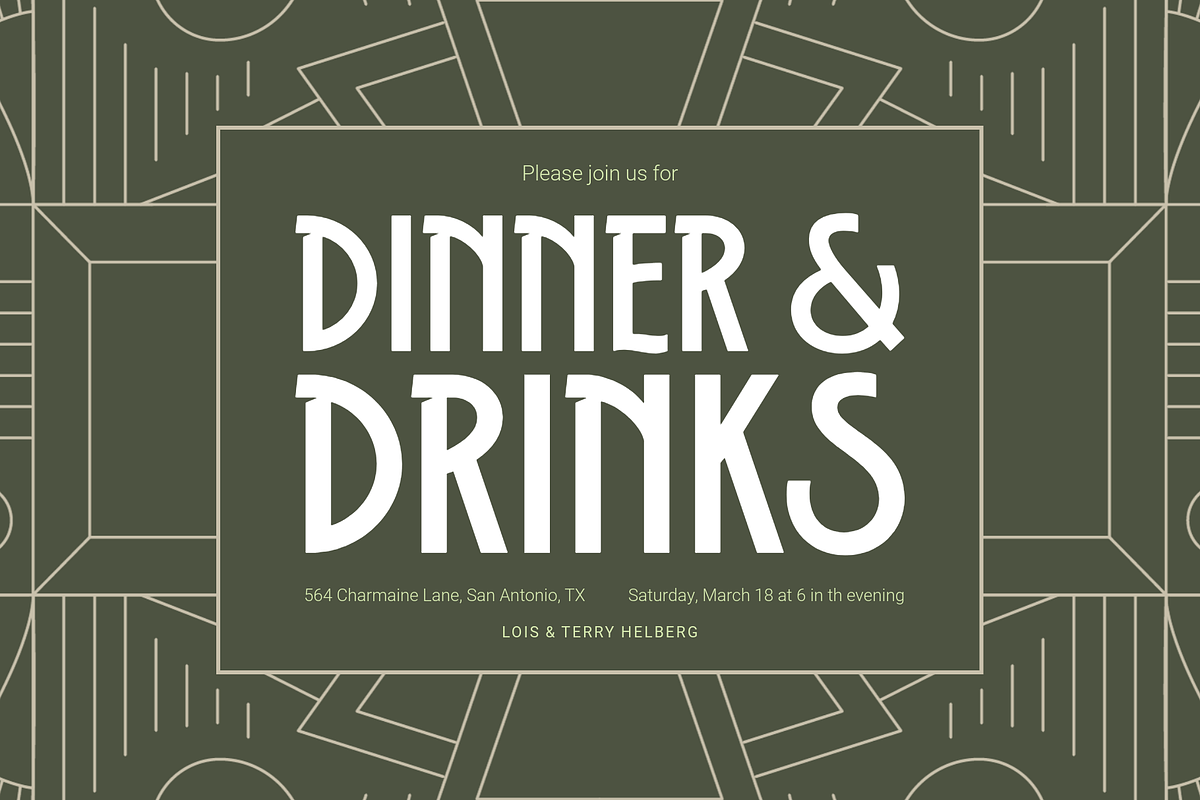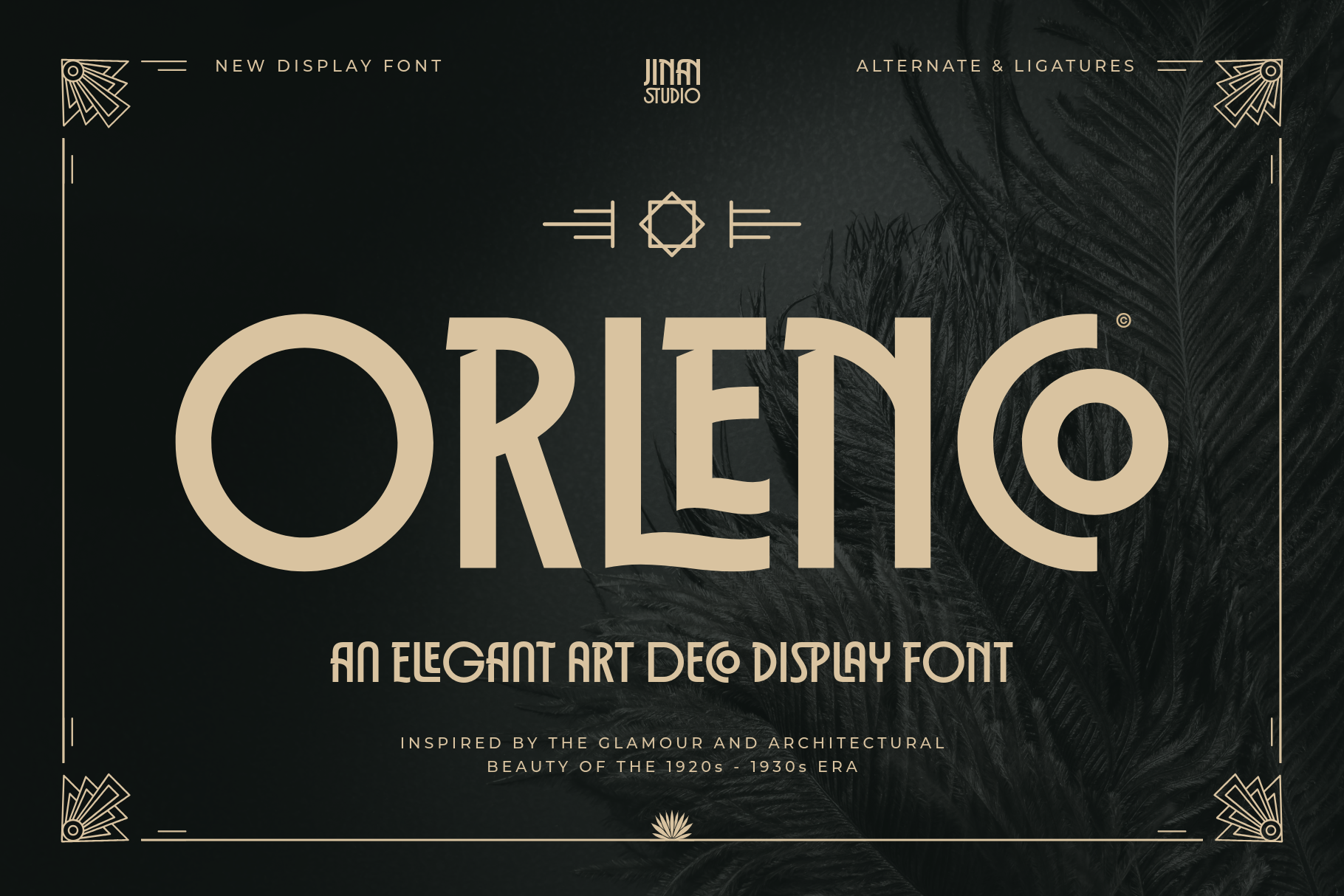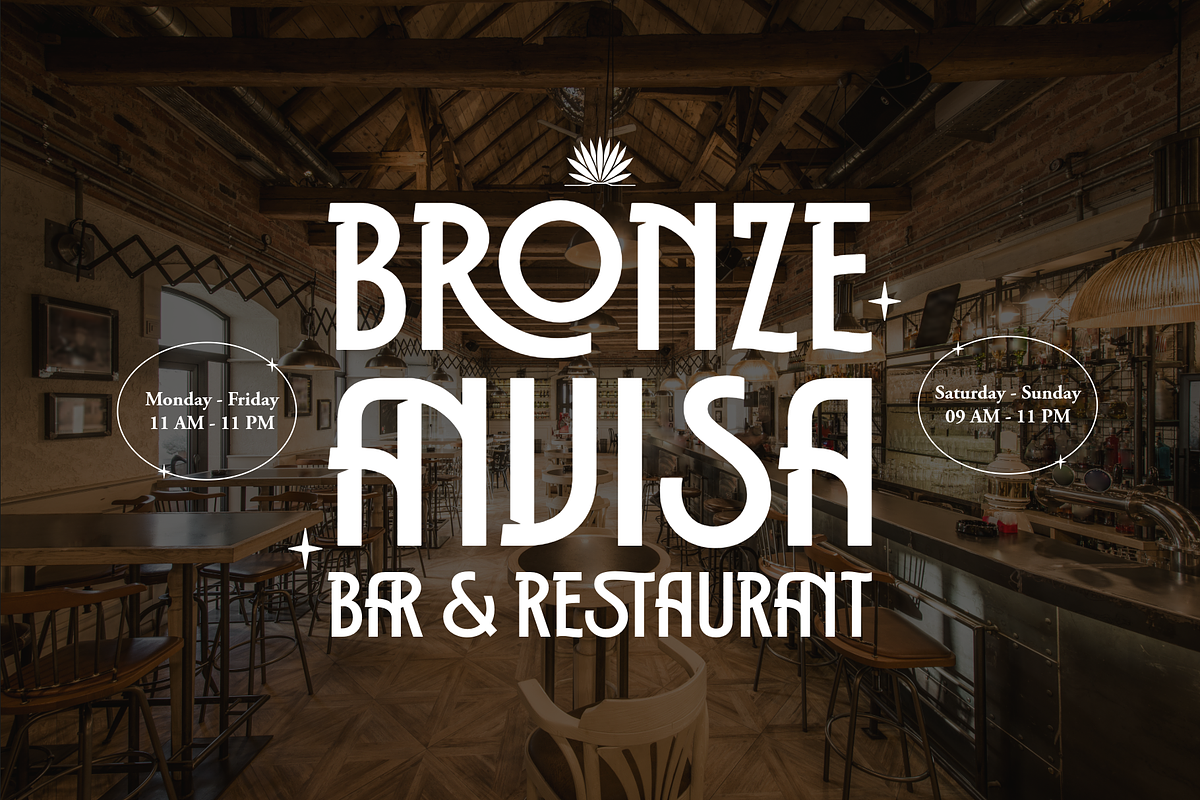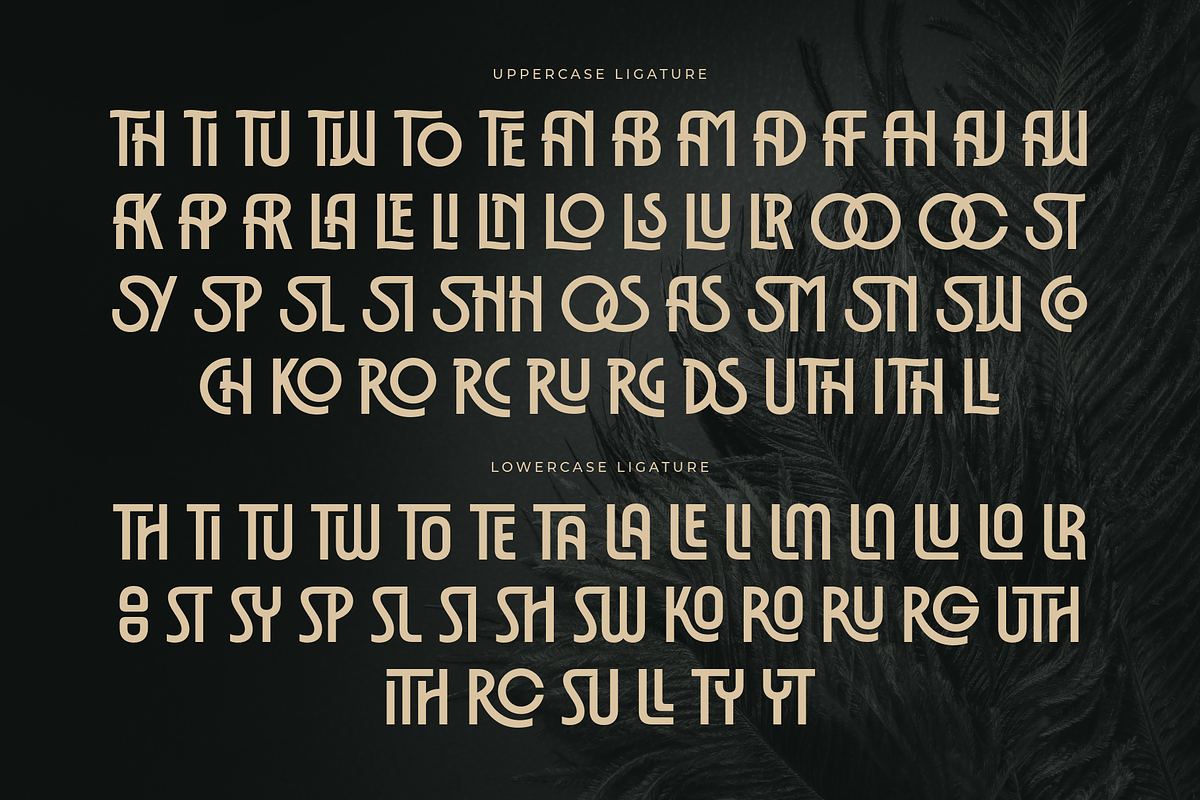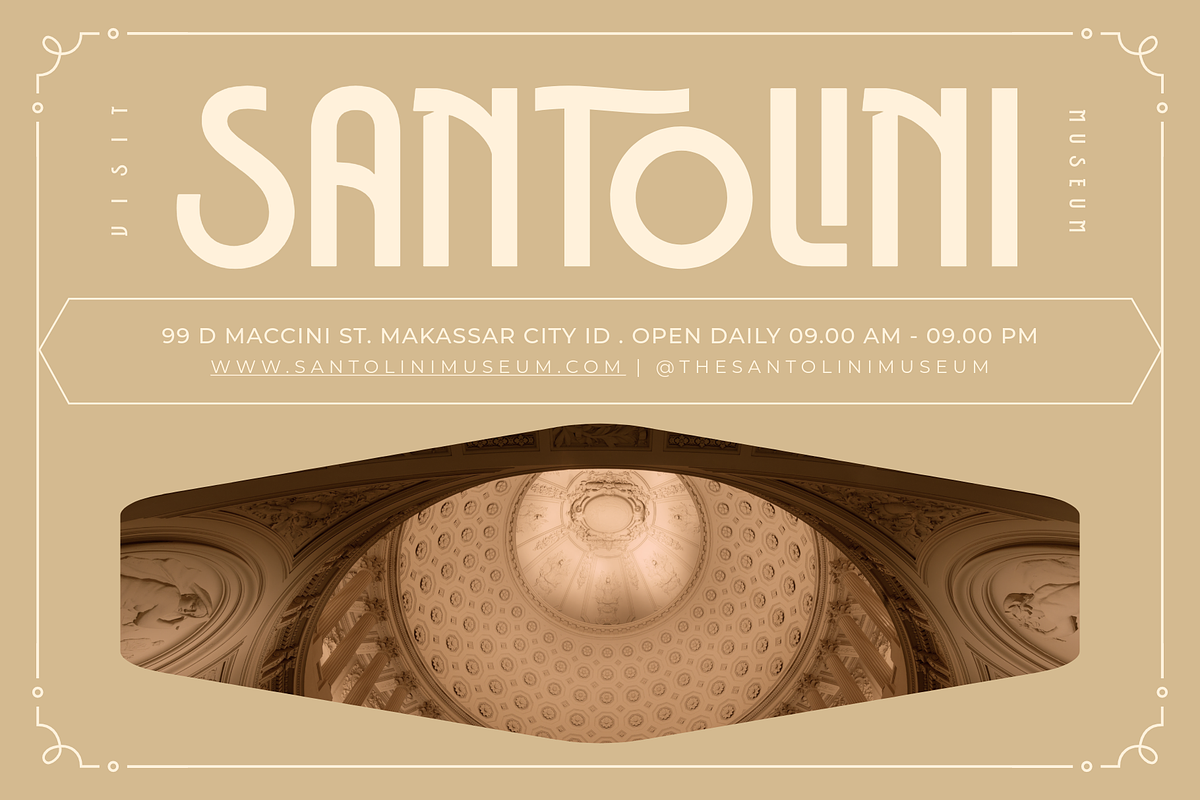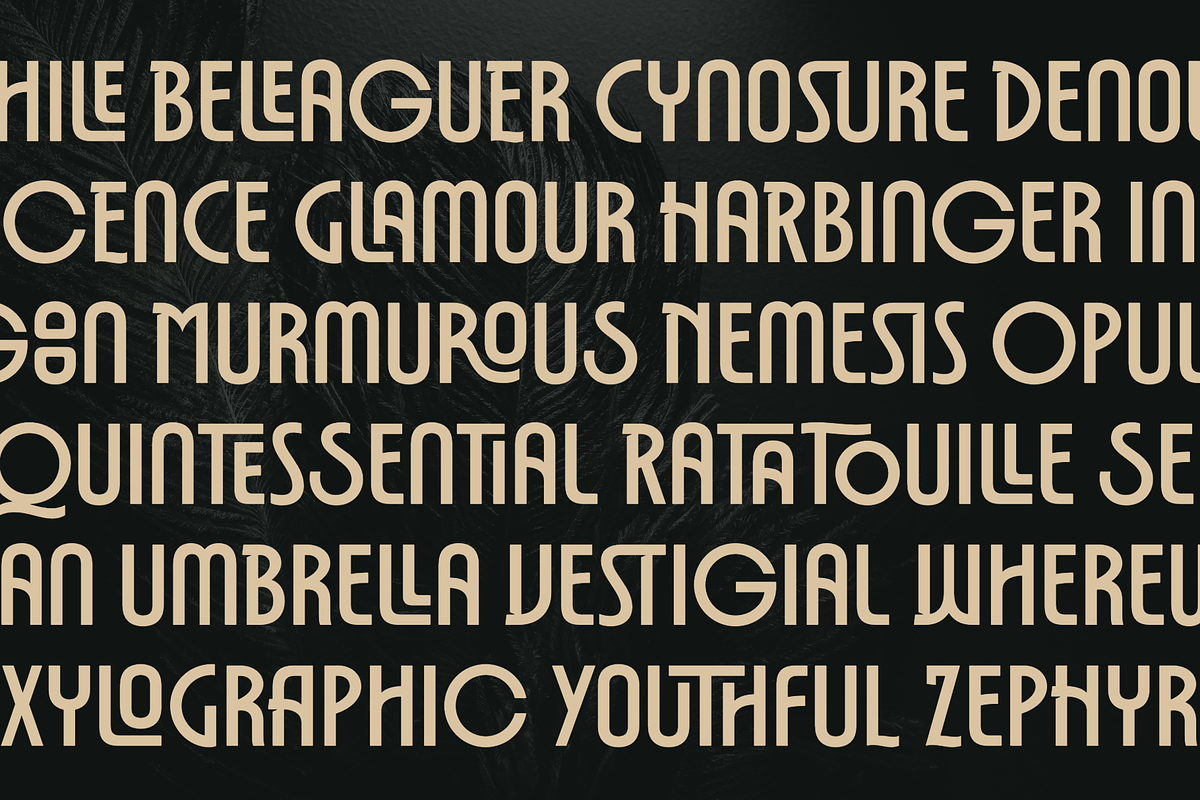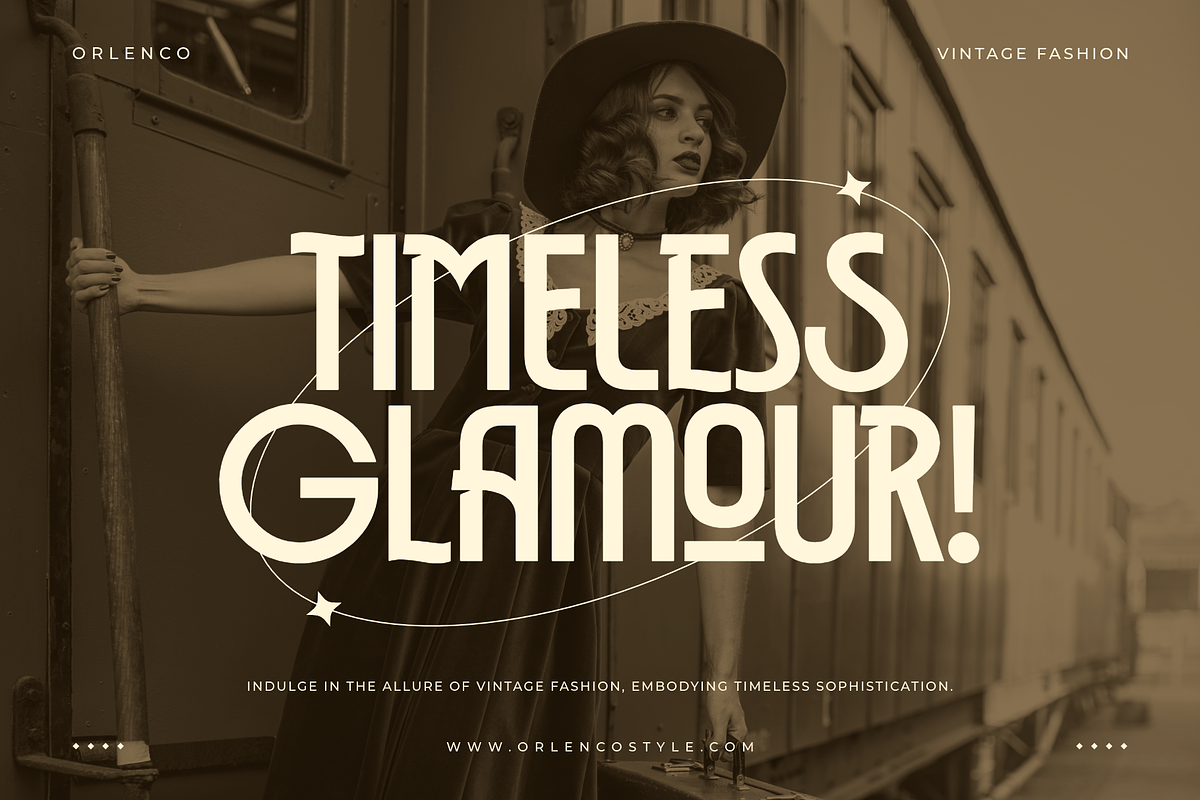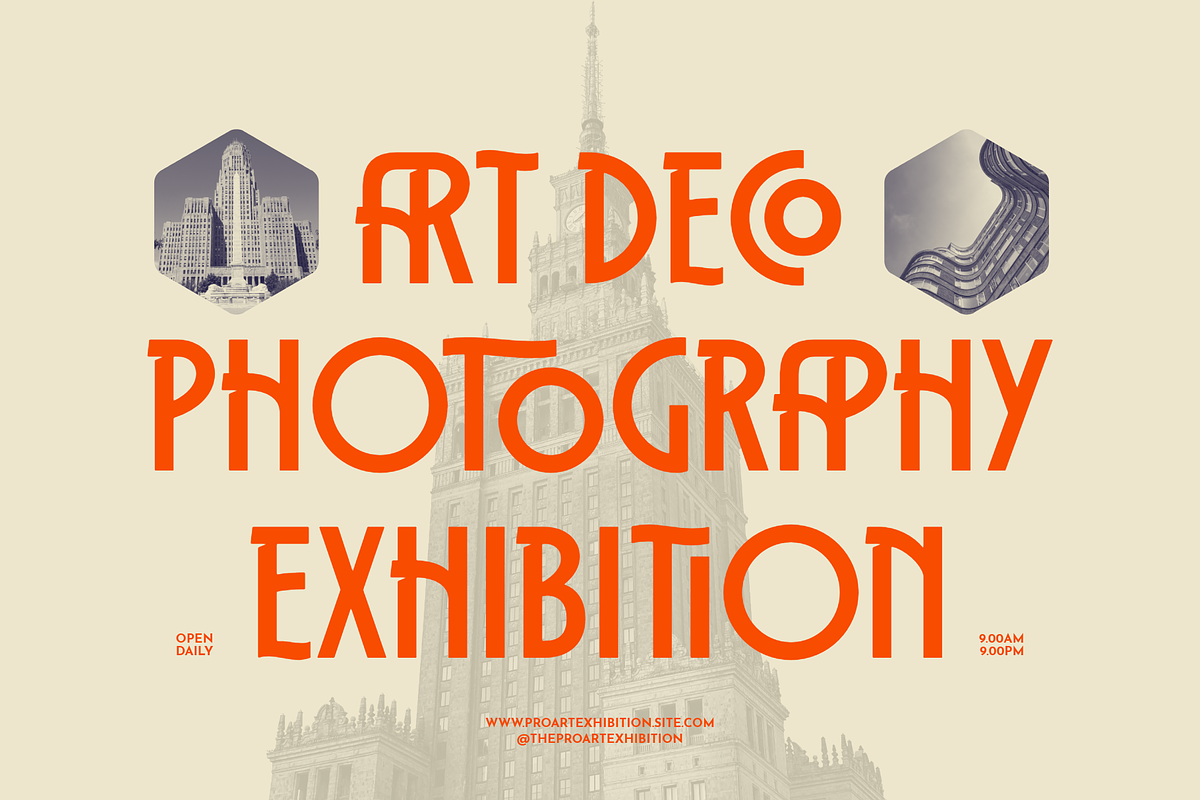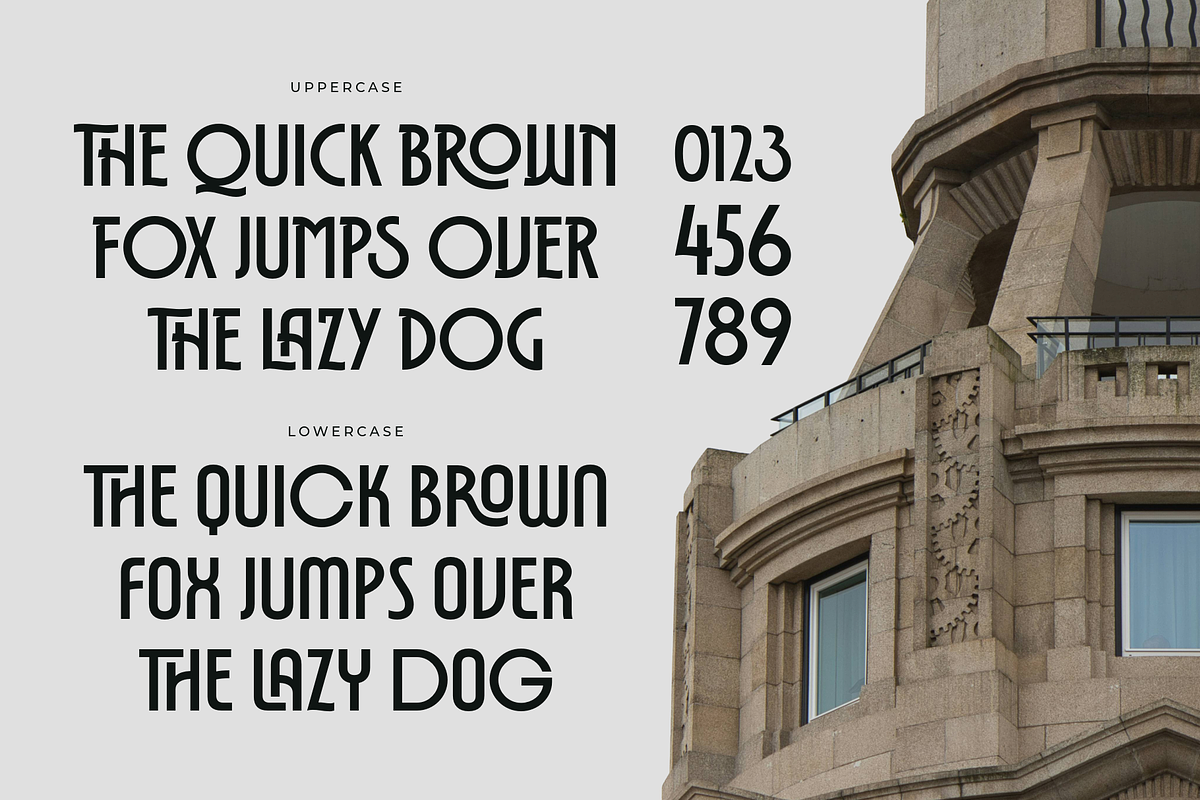
Orlenco - Art Deco Display Font
Orlenco is an elegant Art Deco display font inspired by the glamour and architectural beauty of the 1920s–1930s era. Designed with geometric construction, refined curves, and distinctive decorative details, this typeface brings a luxurious vintage atmosphere while maintaining a clean modern presence.
The condensed proportions and stylized letterforms create a strong editorial impact, making every headline feel iconic and sophisticated. Enhanced with artistic ligatures and unique alternate details, Orlenco transforms ordinary typography into expressive visual compositions.
Luxury branding
Editorial & magazine design
Logo design
Packaging
Fashion campaigns
Posters & advertising
Hotel & restaurant identity
Wedding stationery
Art Deco themed projects
Premium social media content